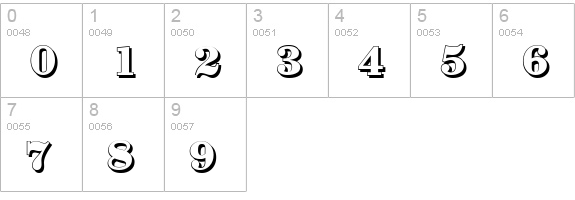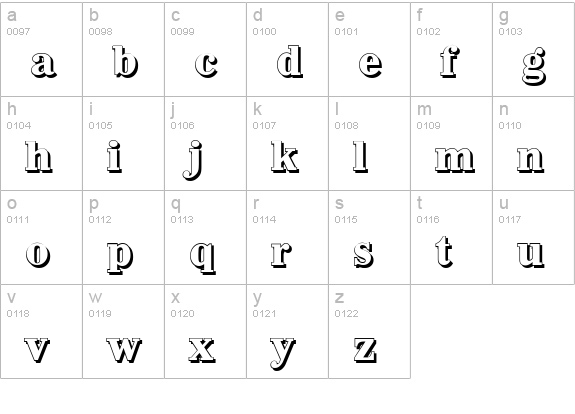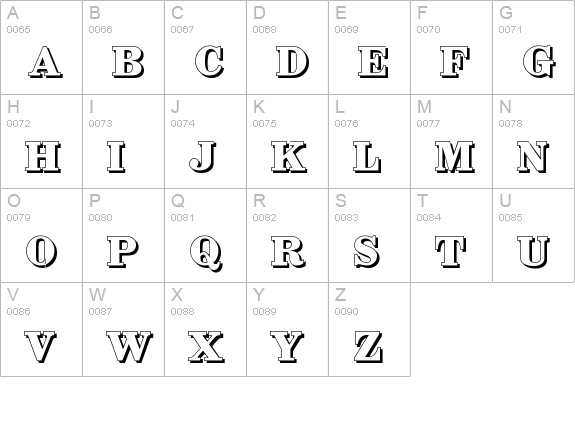
WichitaShadow-Xbold-Regular Font Details
WichitaShadow-Xbold-Regular is the standard, neutral variant in the WichitaShadow typeface family \xE2\x80\x94 well suited to general body text, paragraphs, and standard typographic work.
WichitaShadow-Xbold-Regular is a striking and eye-catching font that exudes a sense of modernity and sophistication. With its bold and distinctive letterforms, this font is perfect for creating attention-grabbing headlines and titles. The strong and angular design of WichitaShadow-Xbold-Regular makes it ideal for projects that require a powerful and impactful typographic statement. Best of all, WichitaShadow-Xbold-Regular is available for free download at FontsMarket.com. This means that you can easily access and use this stunning font in your designs without any cost. Whether you're working on a branding project, poster design, or any other creative endeavor, WichitaShadow-Xbold-Regular is sure to make a bold statement and elevate your work to the next level. Download this font today and unleash your creativity with WichitaShadow-Xbold-Regular!